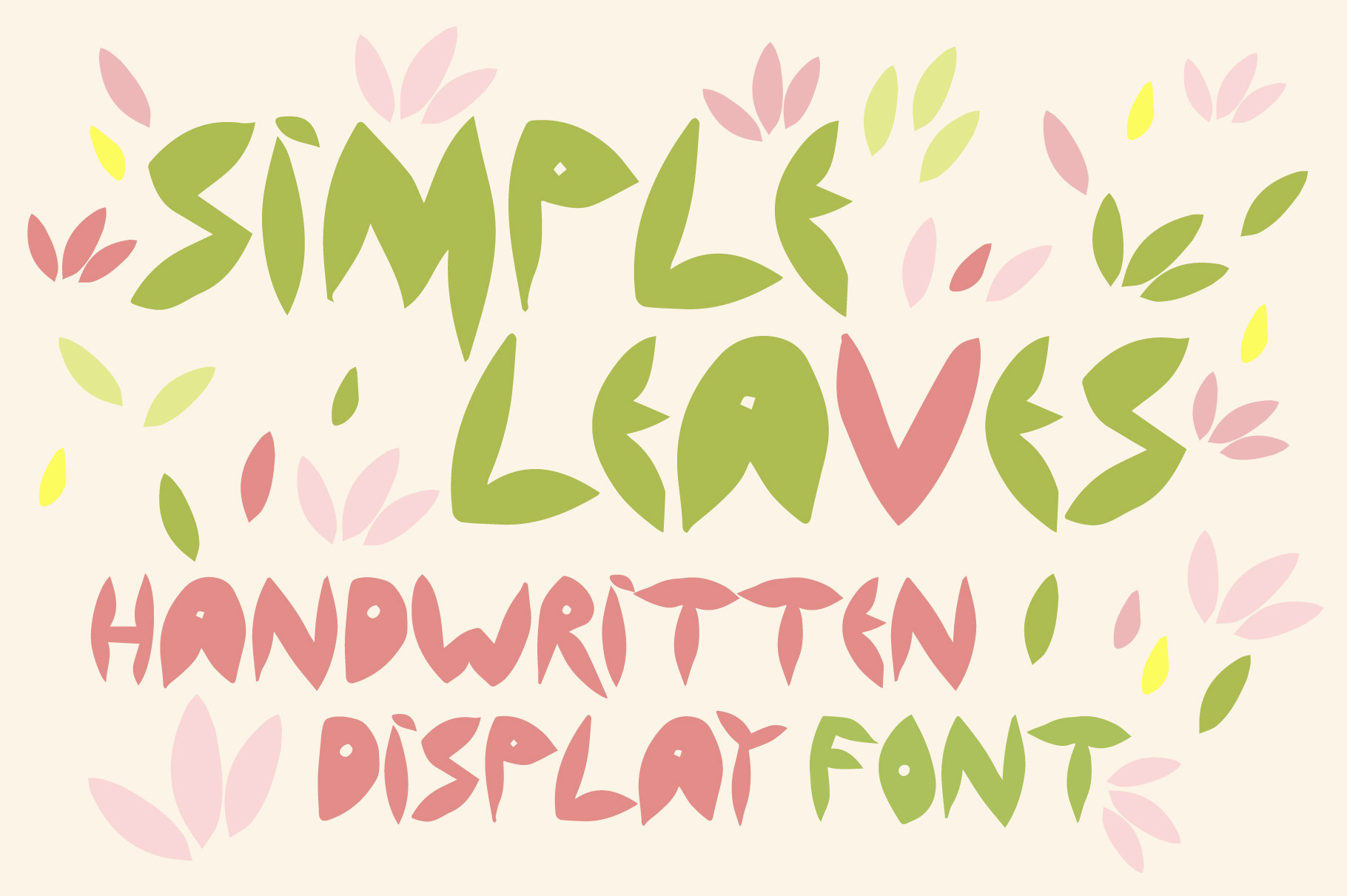
Simple Leaves - Handwritten Font
Simple Leaves Font
Simple Leaves is a handwritten display font ideal to be employed in titles, decoration, stationery, etc. It communicates a casual, playful and positive personality.